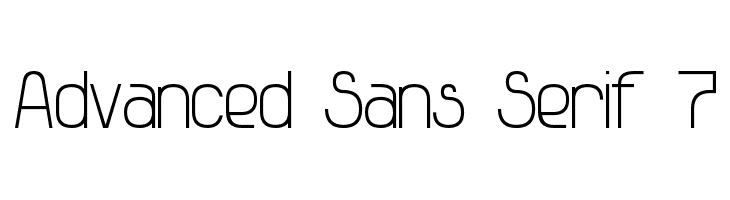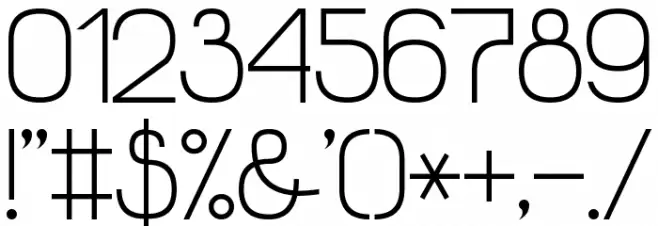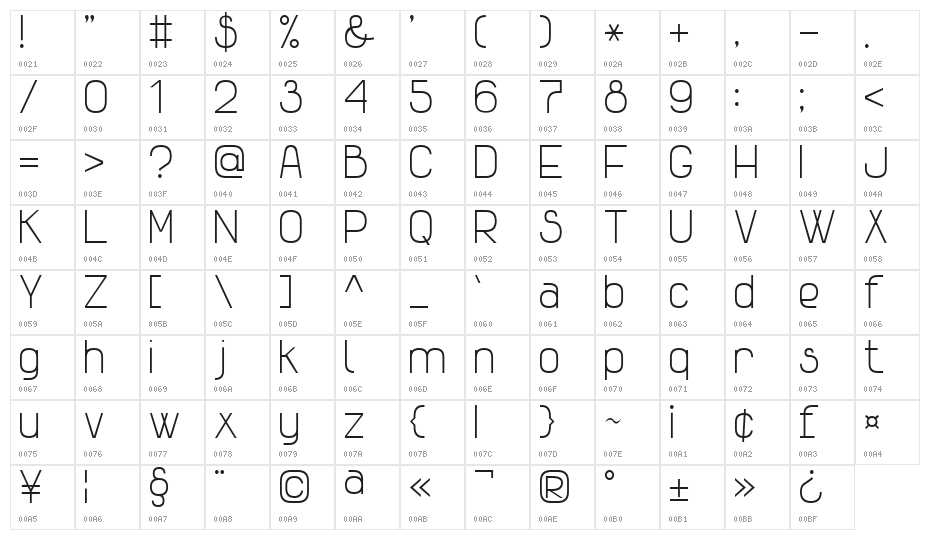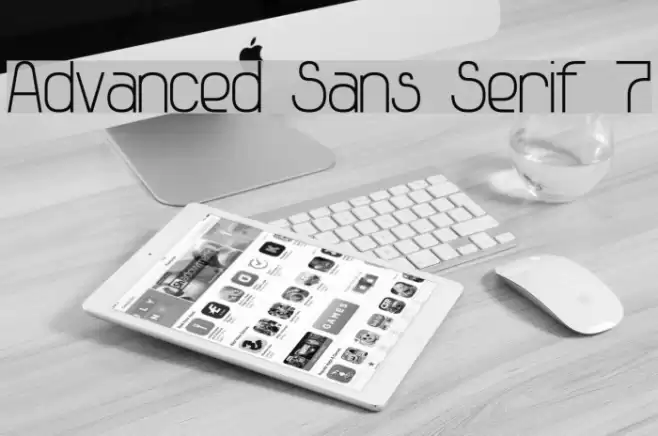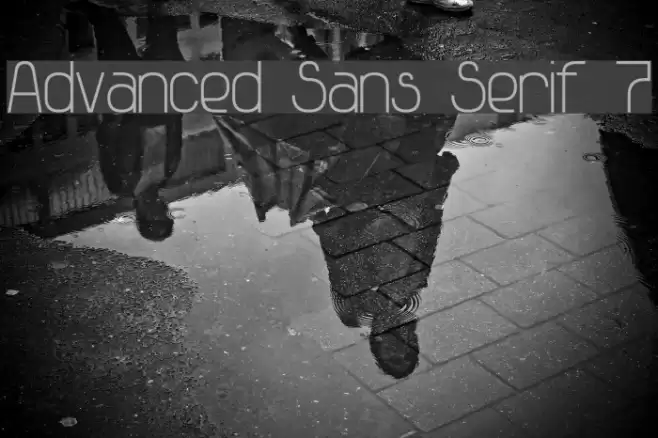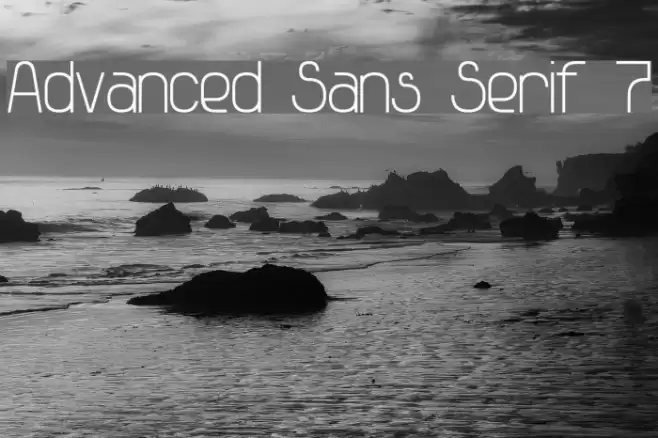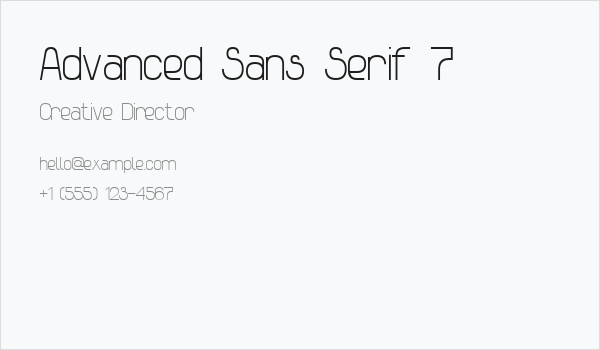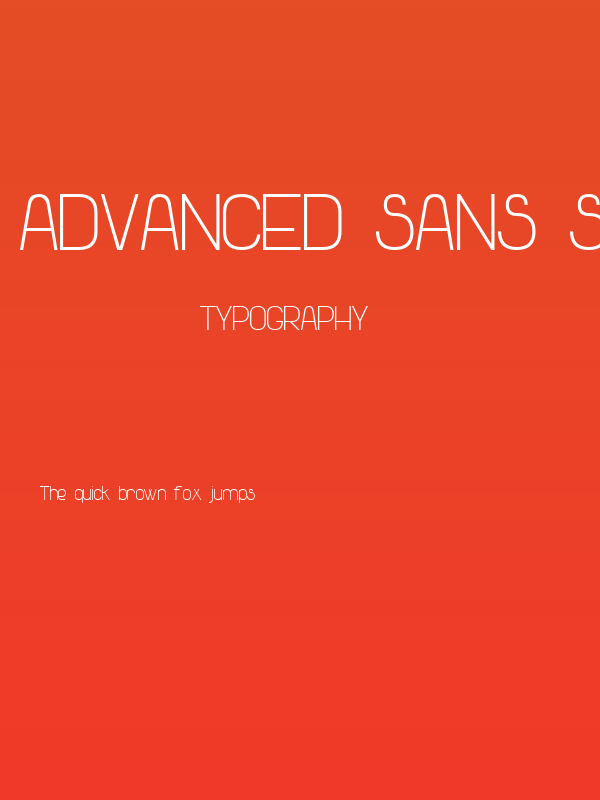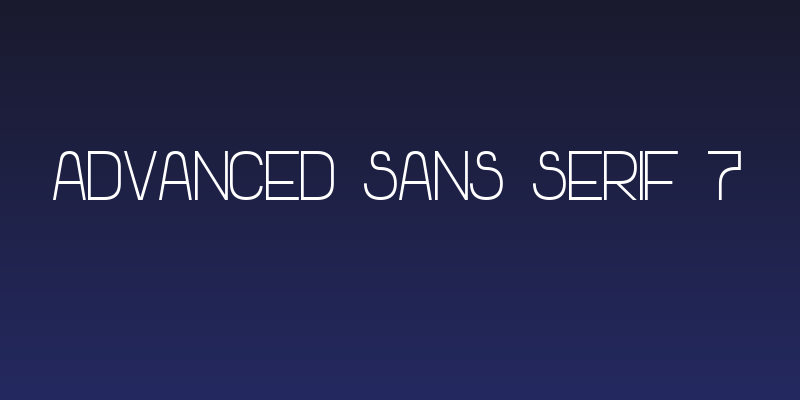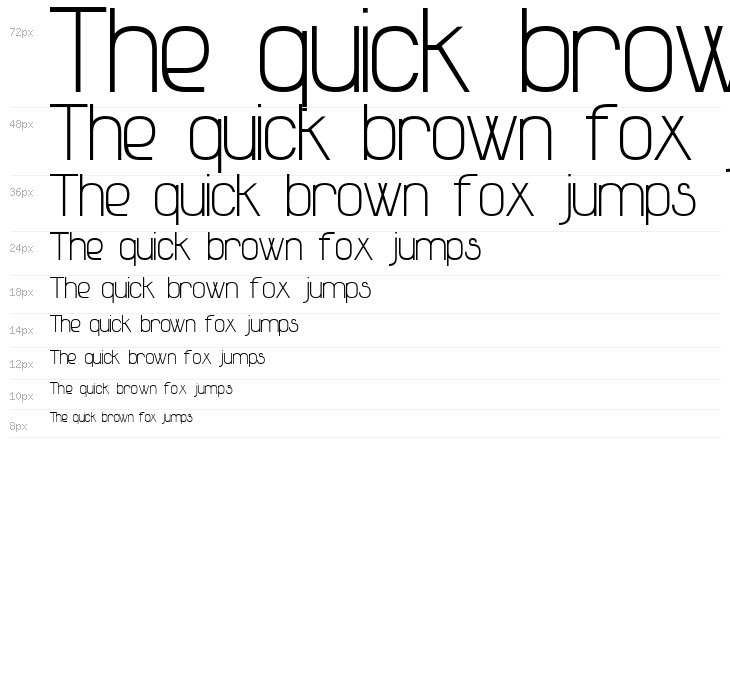
Advanced Sans Serif 7 Font
Advanced Sans Serif 7 Description
This font features a clean and modern sans-serif design with a geometric structure. The characters are uniform in width, giving a balanced and harmonious appearance. The uppercase letters are tall and slightly narrow, while the lowercase letters maintain a consistent height, enhancing readability. The numerals are clear and distinct, making them suitable for both digital and print applications. Special characters are well-defined, adding versatility to the font. The overall aesthetic is sleek and contemporary, ideal for projects that require a minimalist and professional look.
| Proposed Projects | Ideal for branding, web design, corporate materials, and editorial layouts. |